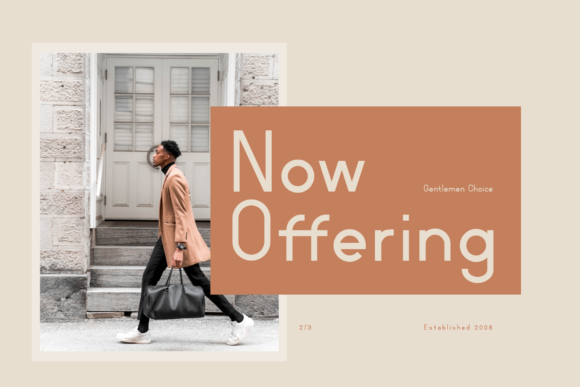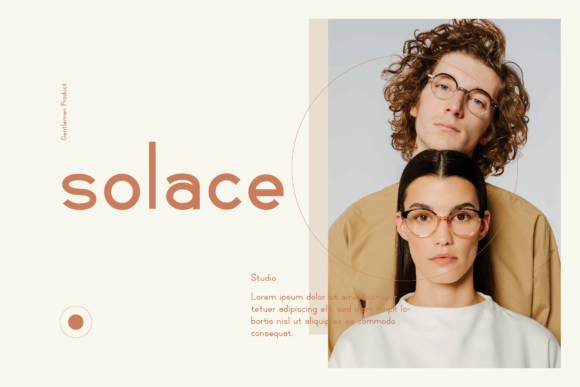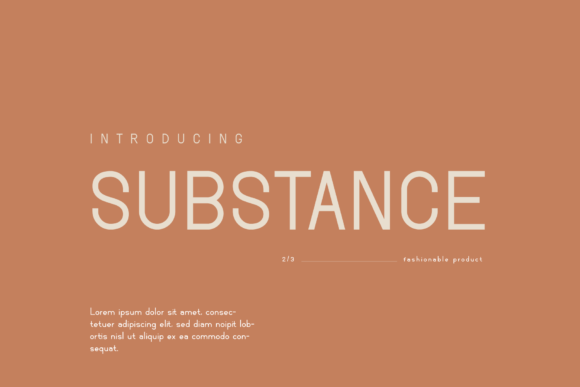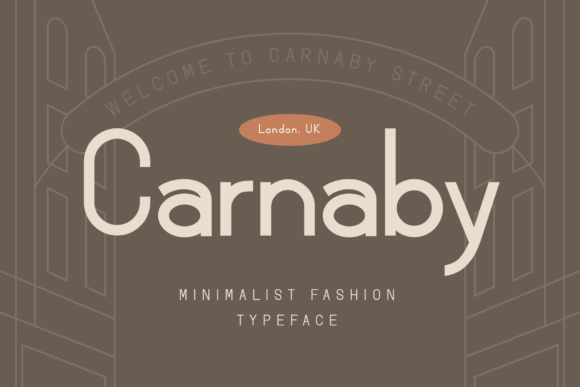
Introduction to Carnaby Font
Carnaby is a minimalist and classy sans serif font.
It can be used for various designs, such as websites, advertisement, headlines and so much more .
Key Features of Carnaby Font